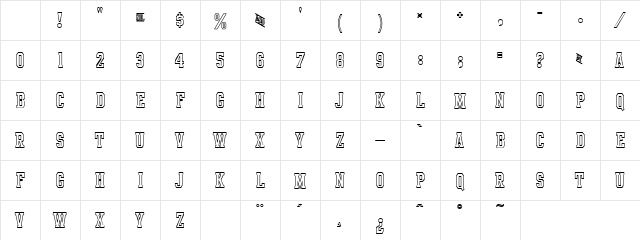
Complete Intramural Outline JL Regular glyph index. Displaying only characters natively supported by Intramural Outline JL Regular font.
Intramural Outline JL is built around its visual character rather than neutral utility - its distinctive forms are designed to make an impression at display sizes.
Font Pairing: Pair with a clean neutral sans-serif for body copy to let Intramural Outline JL's character lead without overwhelming the composition.
Pro Tip: Use Intramural Outline JL exclusively at display sizes - it was designed to be seen, not read at length. Let a neutral companion handle body copy.